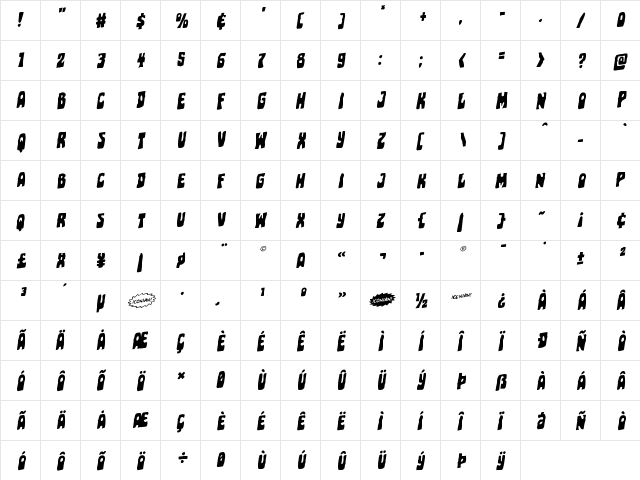
Pocket Monster Rotalic Italic
Design Context for Pocket Monster Rotalic Typeface
Pocket Monster Rotalic is a composed and adaptable typeface that performs quietly and consistently across a wide range of design contexts. The dynamic lean of this cut emphasises speed and emphasis in any layout.
Pro Tip: Use Pocket Monster Rotalic for emphasis, pull quotes, and subheadings where its slanted energy can add rhythm to the layout.